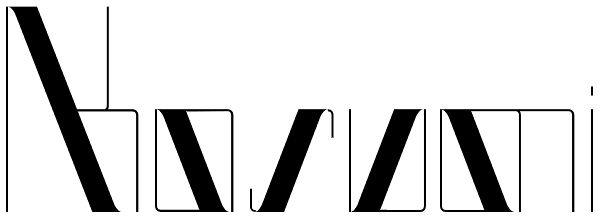
Kosumi
Kosumi is an experimental display typeface. Its juxtaposition of thick and thin catches that gleam in your eye, and leads you by the hand out of your comfort zone with such ease that you'll never look back. Kosumi is comfortable in any of a thousand...